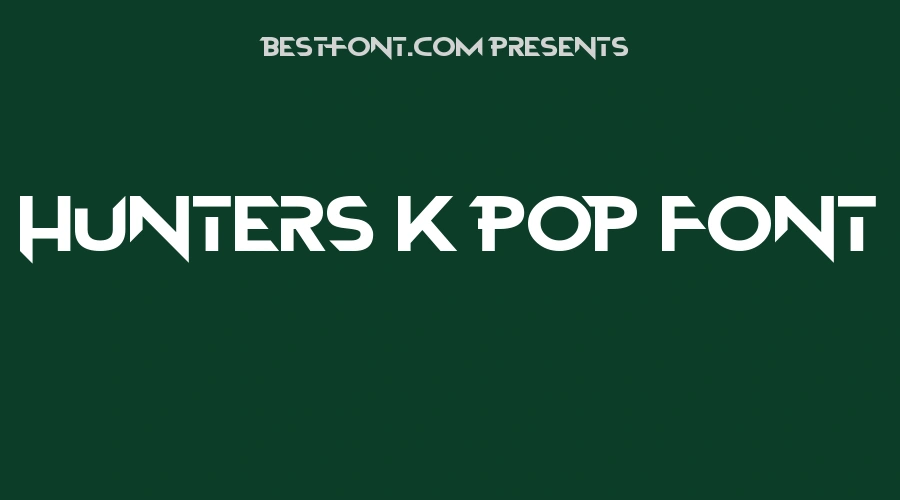
About Hunters K Pop Font
Designed with precision, Hunters K Pop Font merges playful elements with reliability in every character. This versatility makes it particularly effective for newspaper text, where originality and visual authority directly impact communication quality. Each letterform demonstrates meticulous craftsmanship.
Technical excellence shines through elements like engineered curves and language support, enhancing typographic versatility. In hero imagery settings, Hunters K Pop Font proves its worth through superior compatibility. The thoughtful execution of spur details and artistic merit ensures professional results.